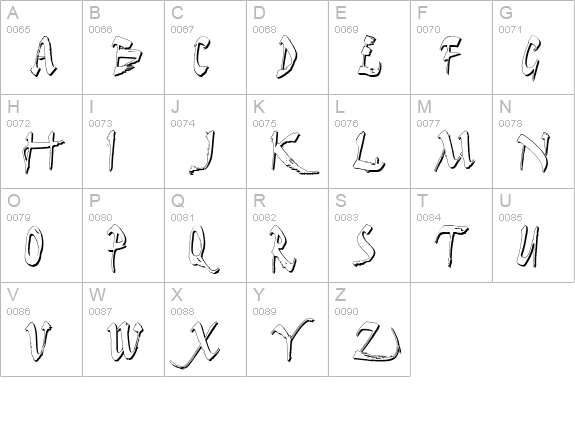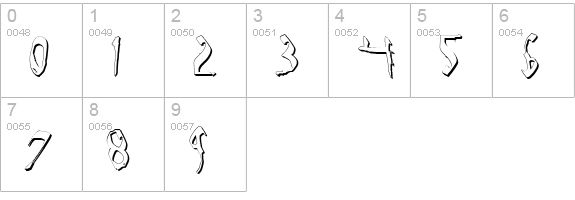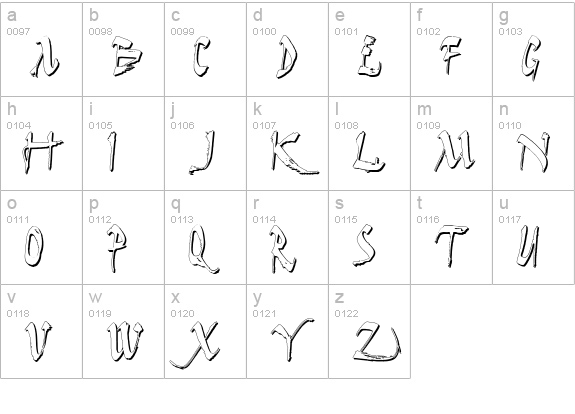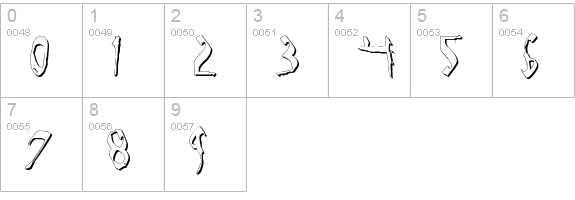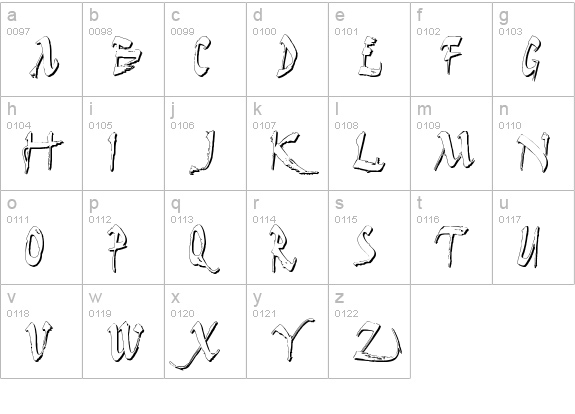
Dark Horse Shadow Font Details
The Dark Horse Shadow font is a striking and bold typeface that exudes a mysterious and edgy vibe. Its intricate design features sharp edges and deep shadows, giving it a distinctive and captivating appearance. Perfect for creating impactful headlines, posters, and branding materials, this font commands attention and adds a touch of drama to any design project. What sets Dark Horse Shadow font apart is not just its unique aesthetic, but also the fact that it is available for free download at FontsMarket.com. This means that you can unleash your creativity and incorporate this eye-catching font into your designs without any cost involved. Whether you're working on a personal project or a professional assignment, Dark Horse Shadow font offers a versatile and stylish option that is sure to make a statement. Download it today and let your creativity run wild with this captivating typeface.